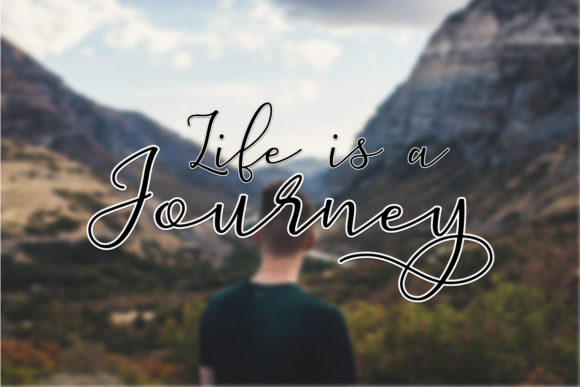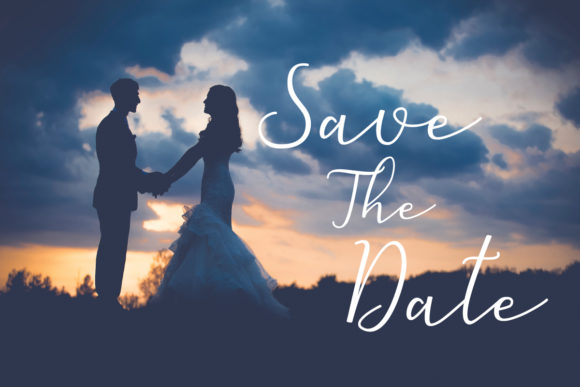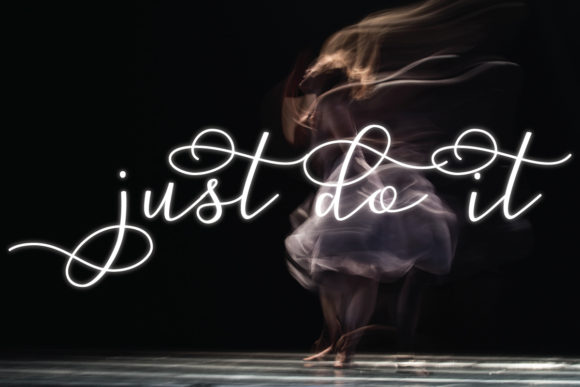
HomeScript FontsMichel Flow Font Script Fonts Michel Flow Font FacebookXPinterestWhatsApp Michel Flow Font Poster 2 Michel Flow Font Poster 3 Michel Flow Font Poster 4 About Michel Flow Font Michel Flow is a cute and delicate script with a lovely twist. Fall in love with its romantic charm. DOWNLOAD ON CREATIVE FABRICAThis font is sold and delivered by Creative Fabrica. Font Canyon may earn a commission if you buy through this link. People also explored Foundation Font Resty Font Fancy Quisley Font Orrick Font Cypress Skulls Font Masa Marker Font Slaberg Pharaoh Font Greshian Font 313 0 TagsMichel Flow Font Previous articleHighlove FontNext articleDatten Font LEAVE A REPLY Cancel reply Comment: Please enter your comment! Name:* Please enter your name here Email:* You have entered an incorrect email address! Please enter your email address here Website: Save my name, email, and website in this browser for the next time I comment. Personal Use Free Elliane Personal Use Free Read more about this font Oaklevin Personal Use Free Read more about this font BD TinyFont Personal Use Free Read more about this font Built Tilting Personal Use Free Read more about this font BLOG The 10 Best Handwriting Fonts to Add Personality to Your Designs 10 of the Best Handwriting Fonts for Adding Personality to Your Designs There will undoubtedly be no other better choice than handwriting fonts to give... 5 Fonts That Will Dominate Design Trends in 2026 Fonts That Capture the Spirit of New York City Elegant Wedding Invitation Fonts – Handwritten & Script Fonts